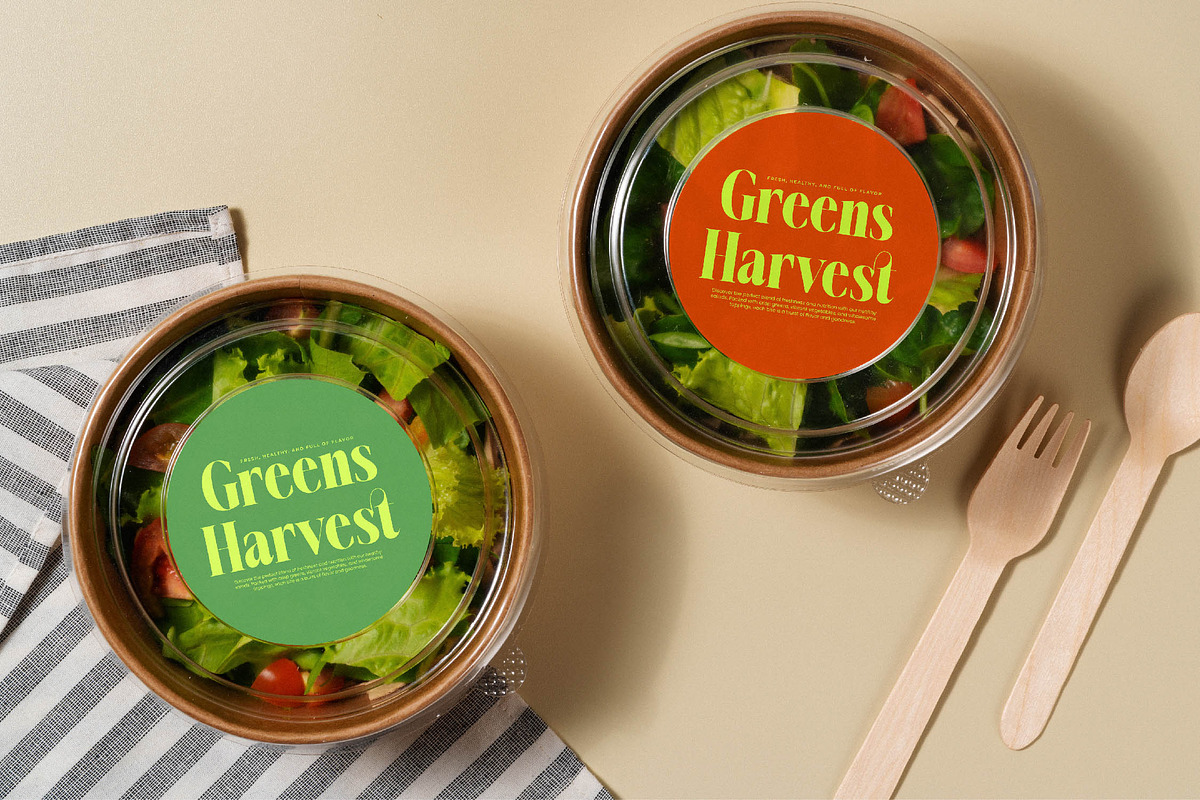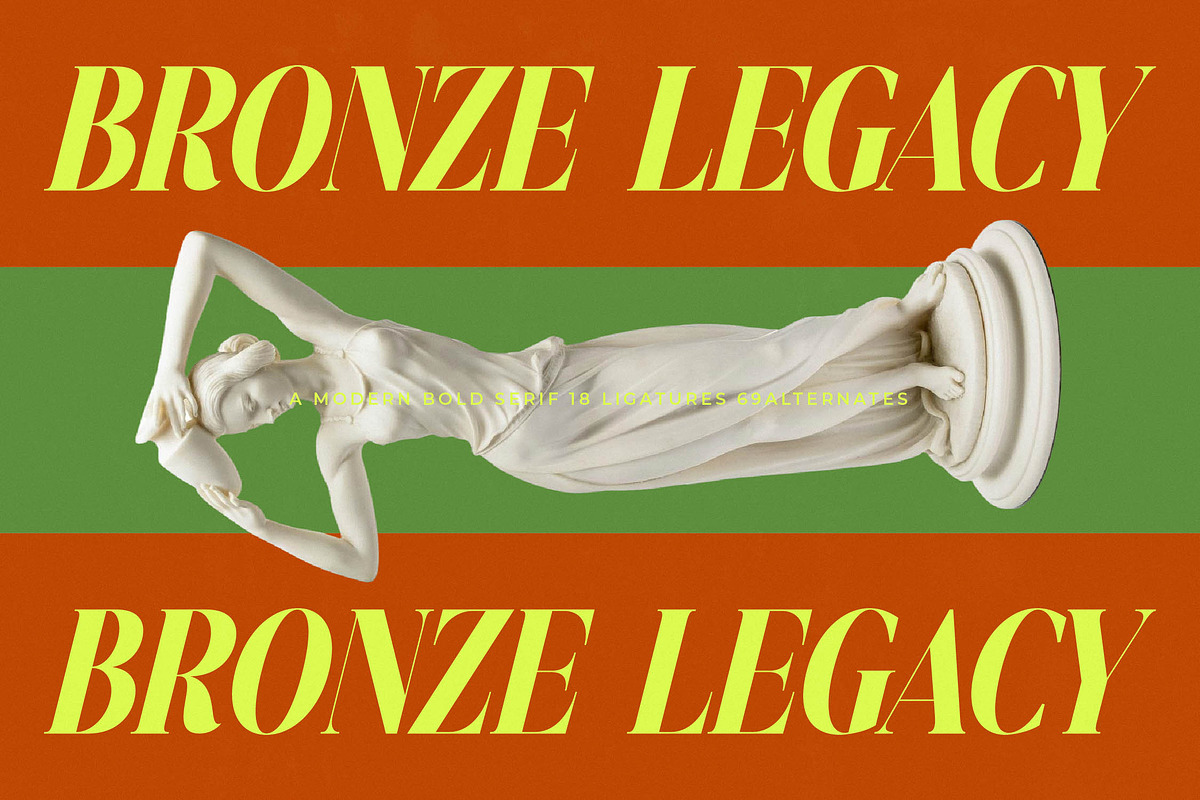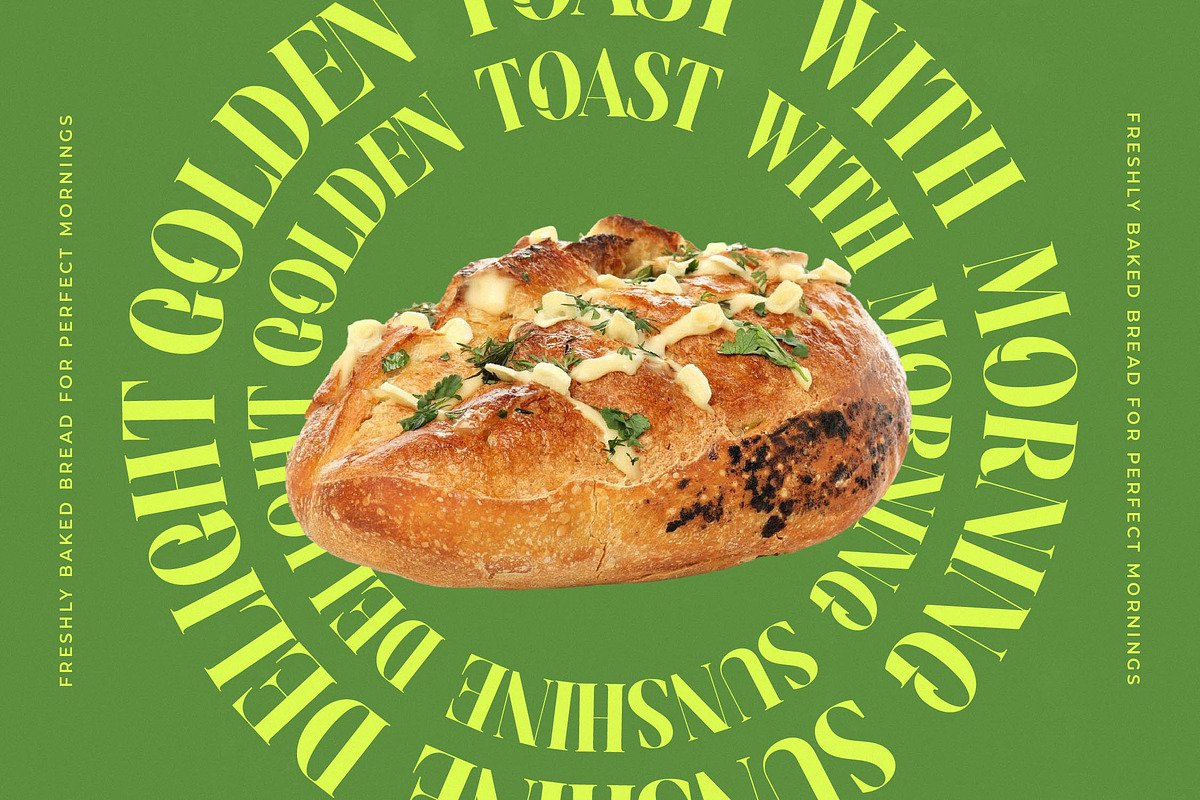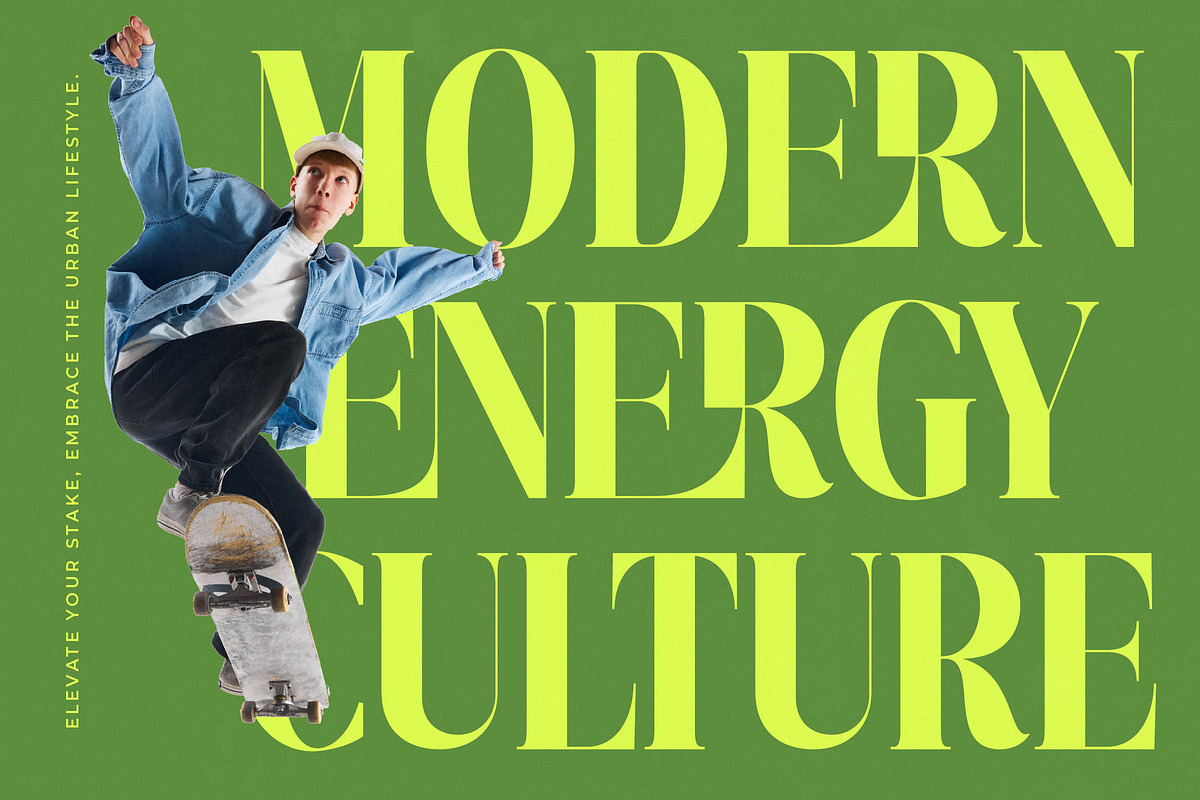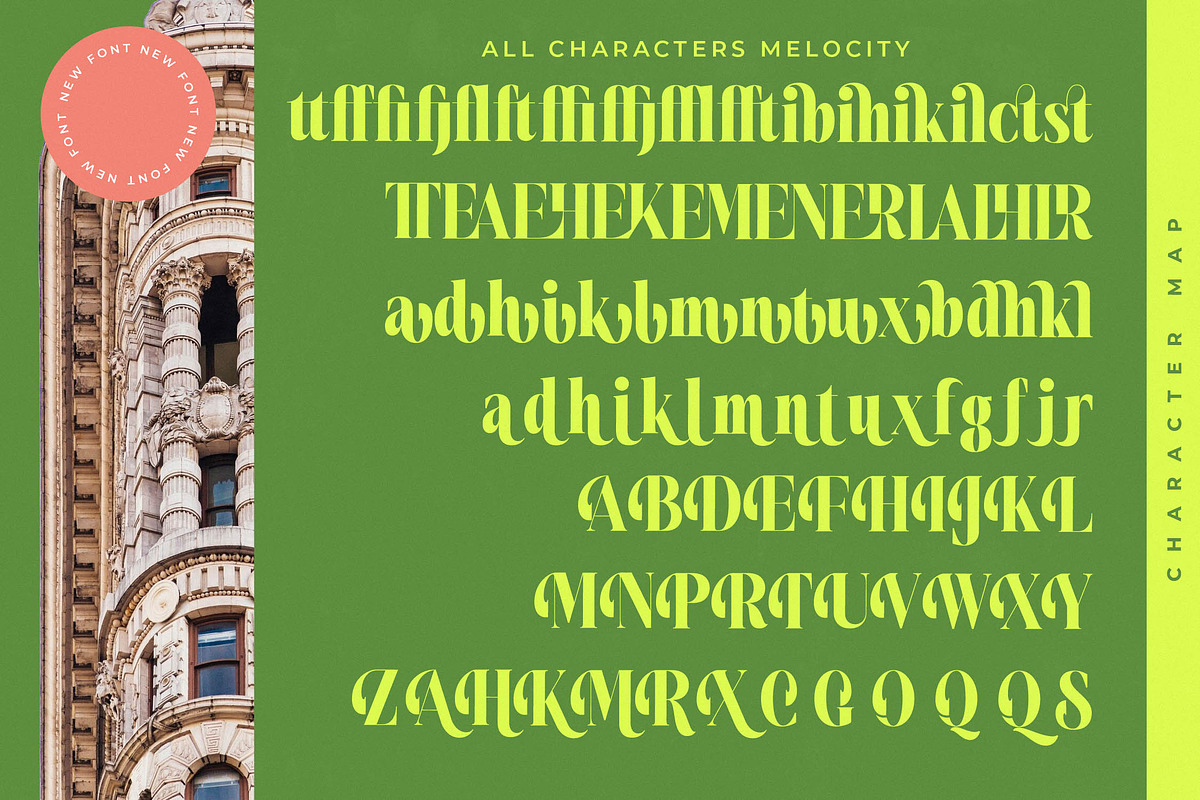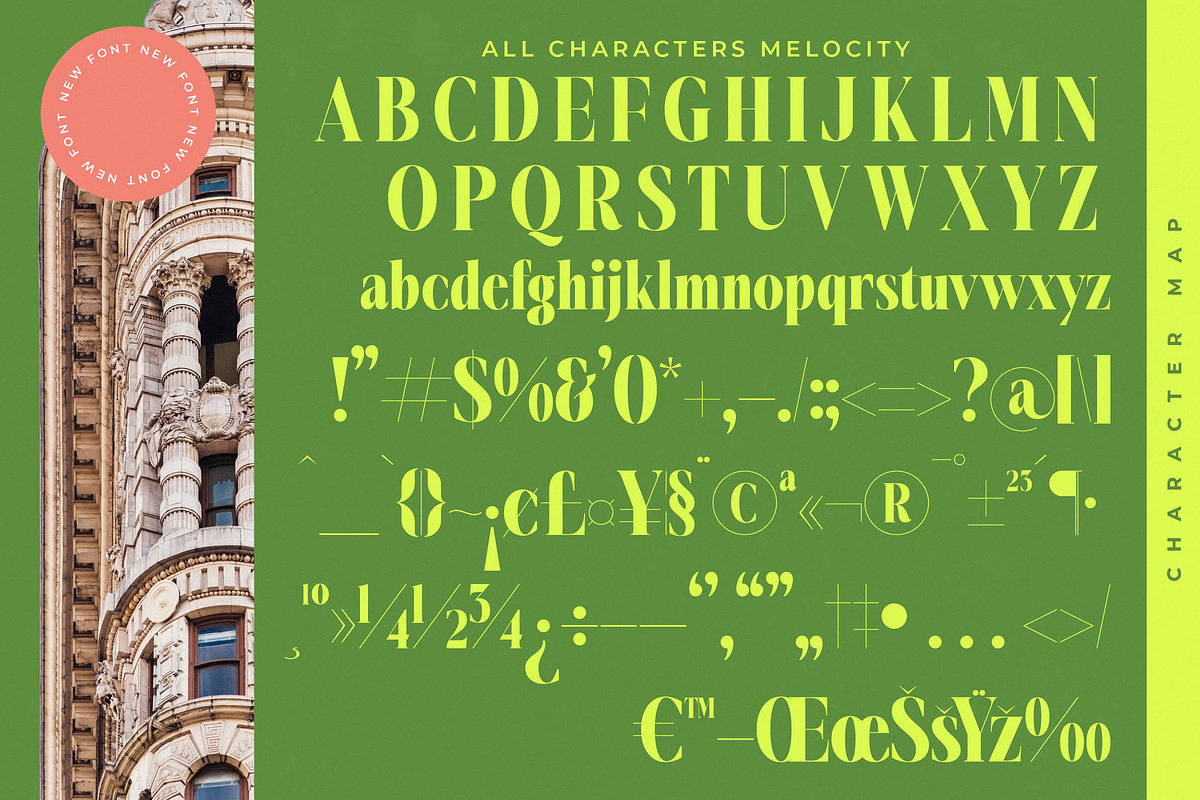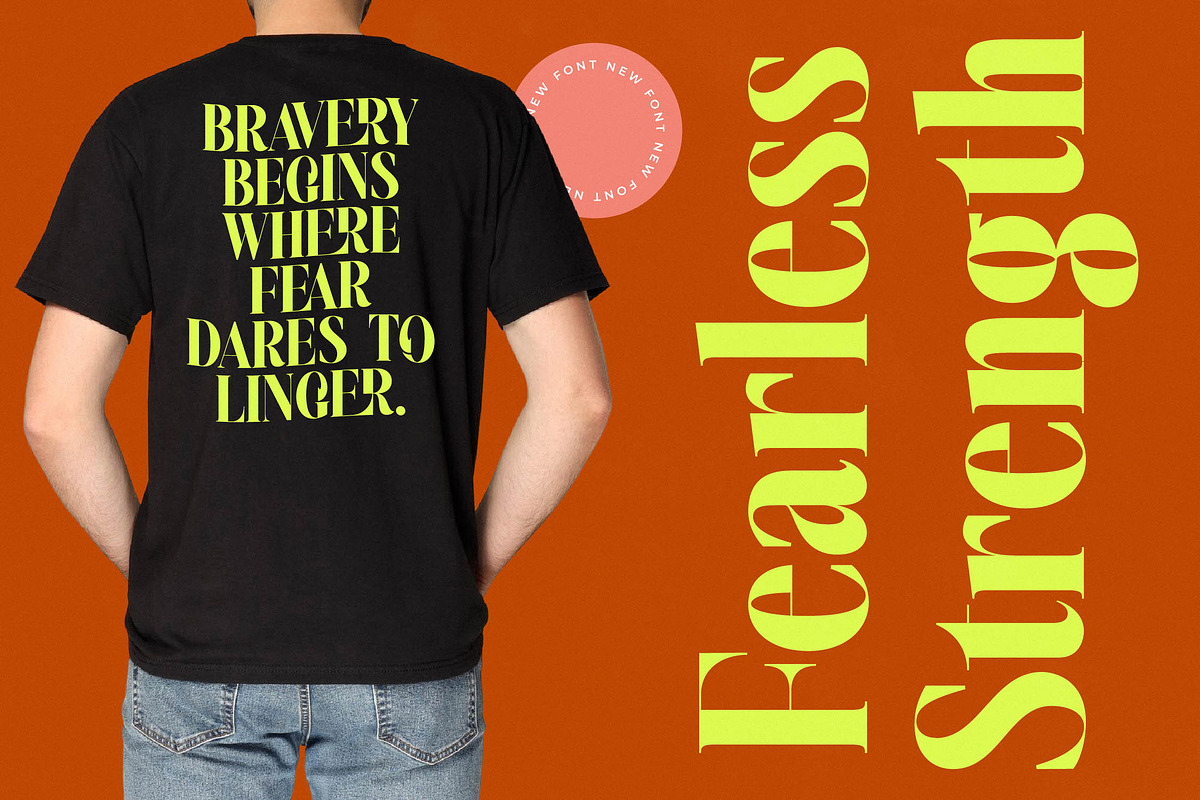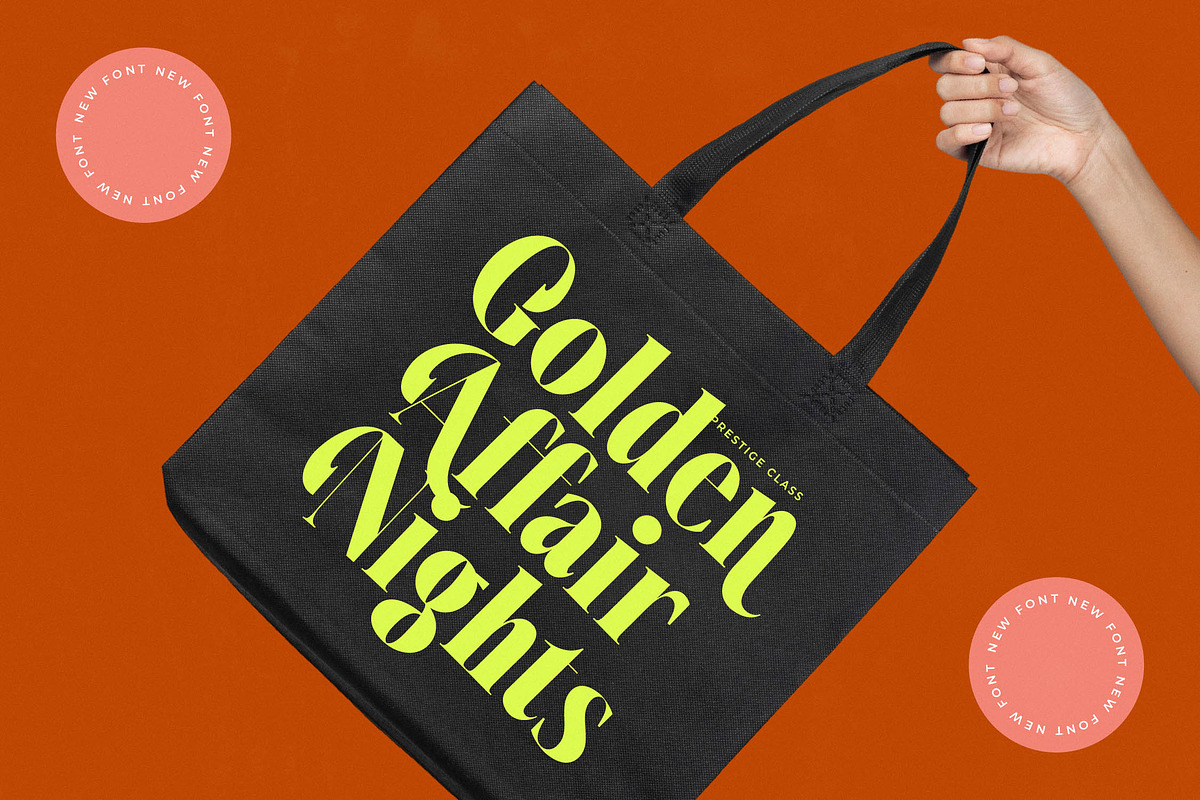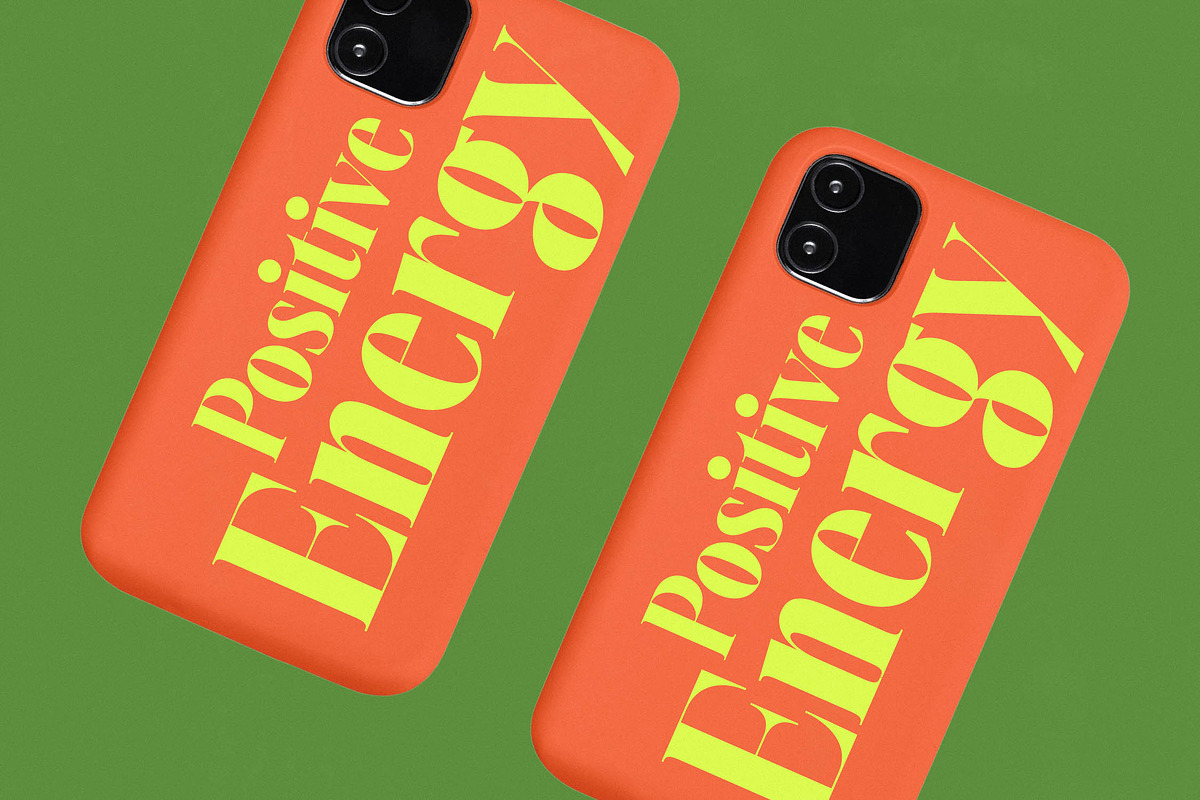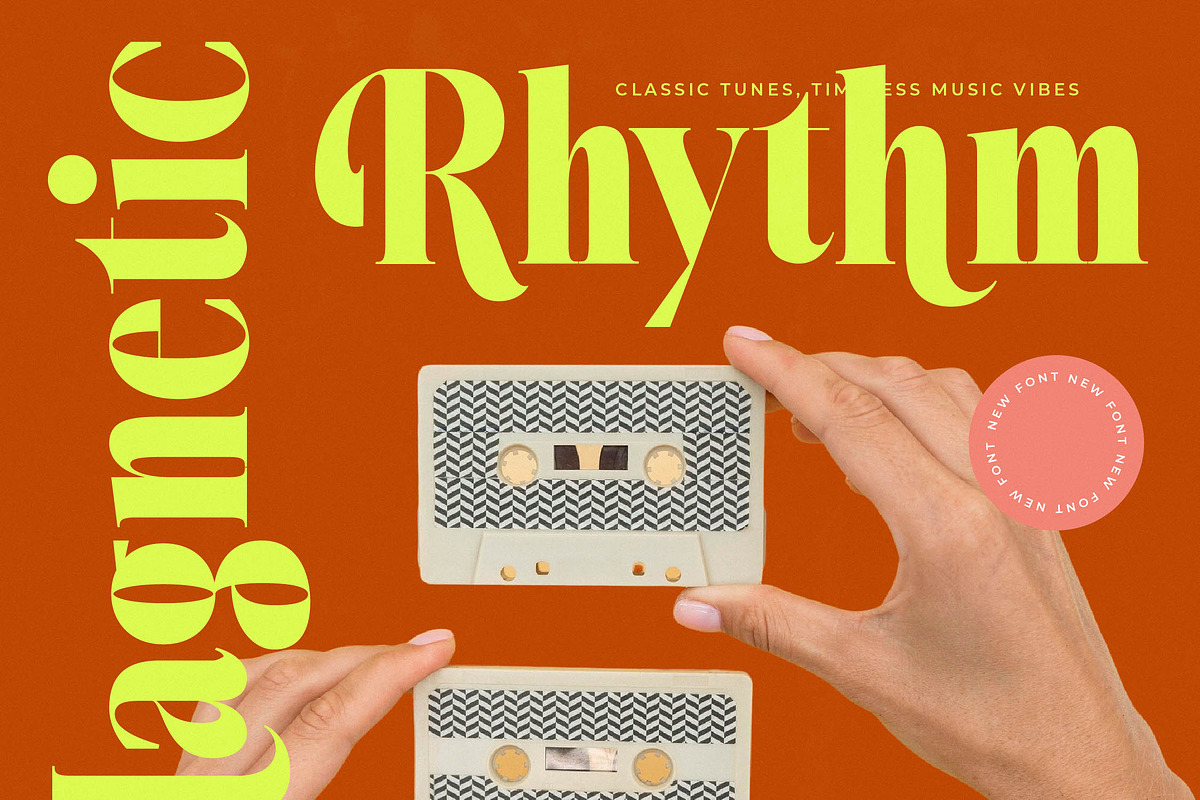
Melocity Elegant Display Serif
Experience the undeniable allure of Melocity, a typeface designed to transform ordinary layouts into extraordinary visual statements. It is a celebration of curves and contrast, crafted for those who demand sophistication in every stroke of their creative work.
Inspired by the iconic silhouettes of New York City architecture and the bold confidence of mid-century editorial design, this font bridges the gap between heritage and futurism. The interplay of sharp angles and soft flourishes captures an atmosphere of high-end urban living and artistic expression.
This modern serif display exudes a luxury typography vibe that provides an immediate branding impact for any high-profile project. As a high-contrast serif, it functions perfectly as an editorial font, offering a rhythmic flow that guides the eye through sophisticated content.
Tapping into the current modern serif trend, this typeface is a quintessential choice for designers seeking editorial display fonts with a soul. It represents the height of character-driven typography, making it easy to create memorable visual identities that resonate with contemporary audiences.
Its versatile nature makes it a premier choice for logo design, high-end corporate branding, and avant-garde editorial spreads. From minimalist packaging to romantic wedding stationery and trend-setting fashion campaigns, it brings a touch of class to every application.
Beyond its basic set, you will find a treasure trove of ligatures and alternates that allow for deep customization of every word. With additional swashes, full multilingual capability, and international characters, this font is a complete toolkit for global creative professionals.
- Ligature 26 Alternate 65